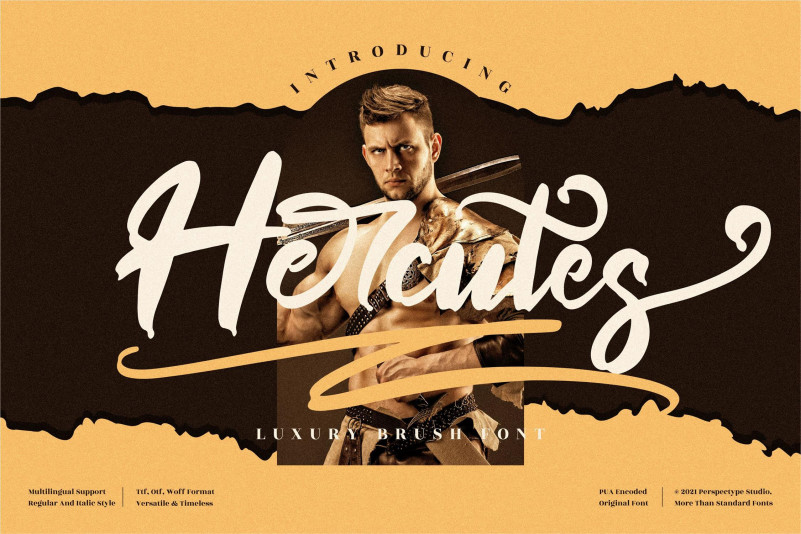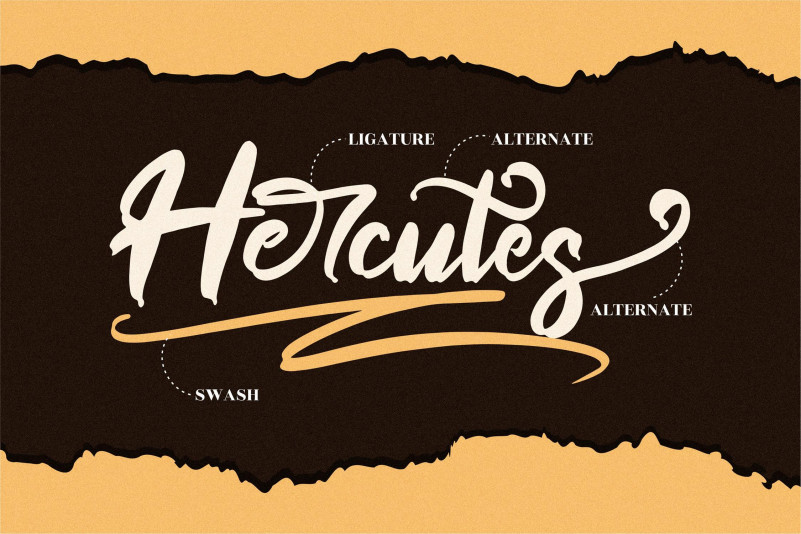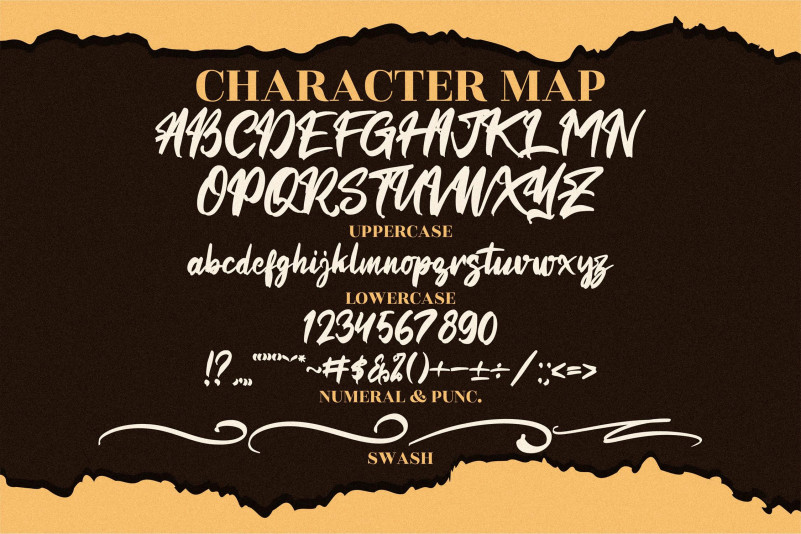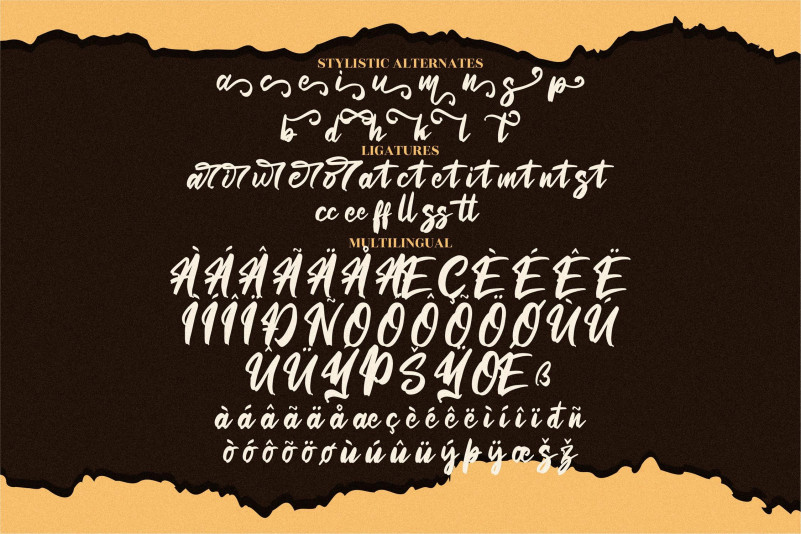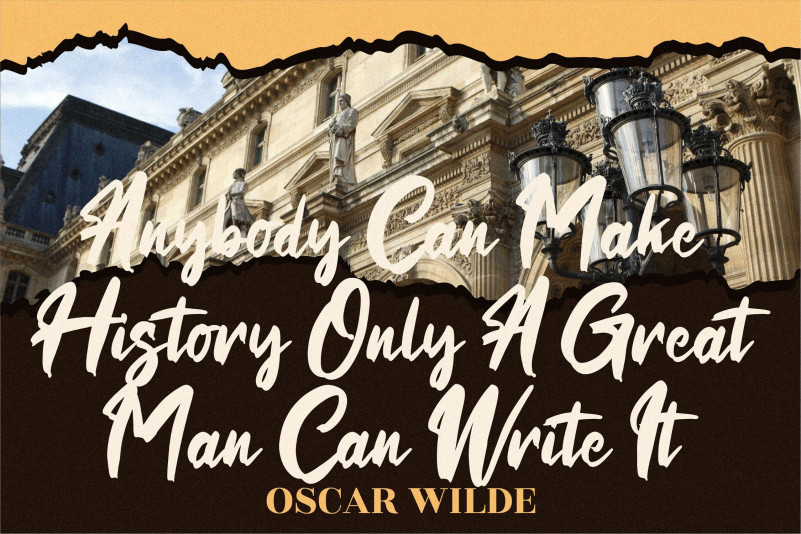
Hercutes Font
Hercutes Brush Font
This is a modern and bold brushed script font. It looks beautiful on a variety of designs requiring a personalized style, such as wedding invitations, thank you cards, weddings, greeting cards, logos and so on. This font is PUA encoded which means you can access all of the glyphs and swashes with ease!